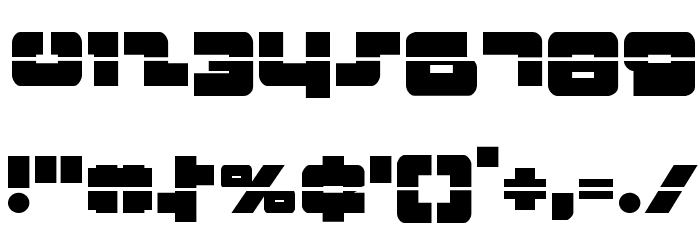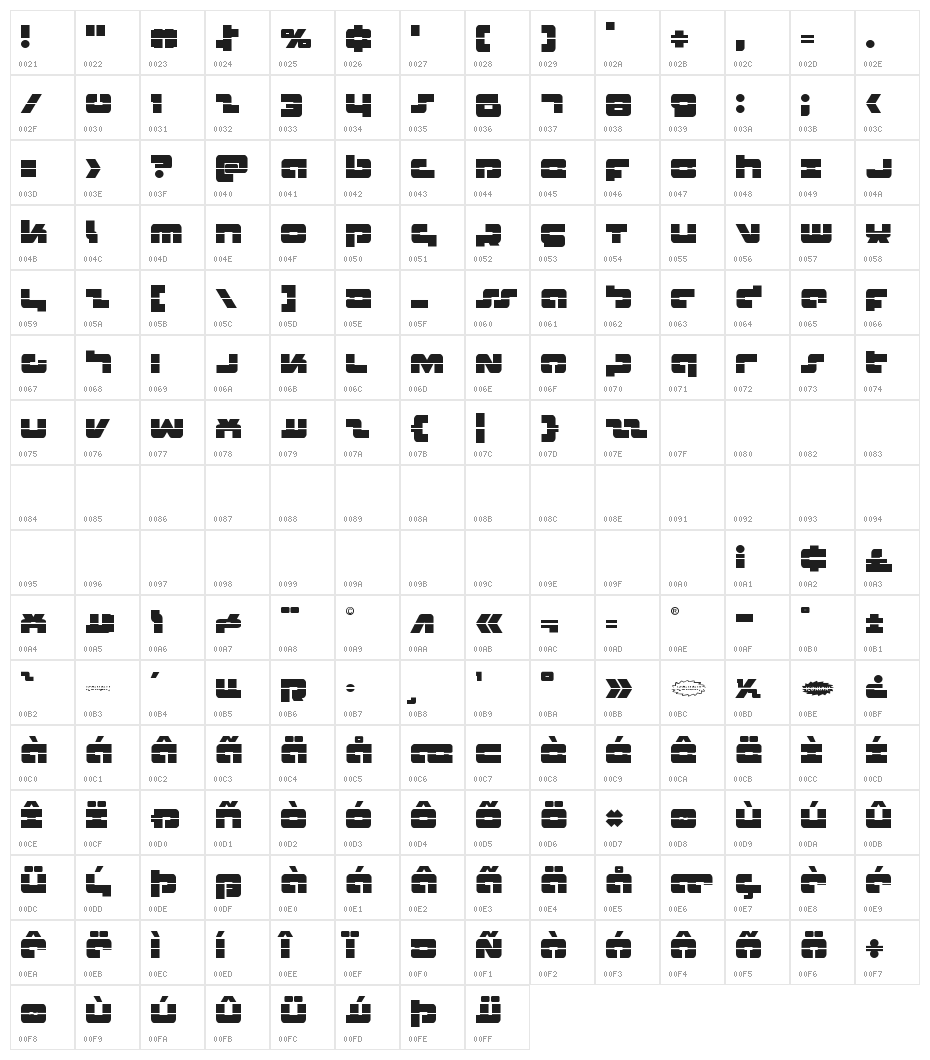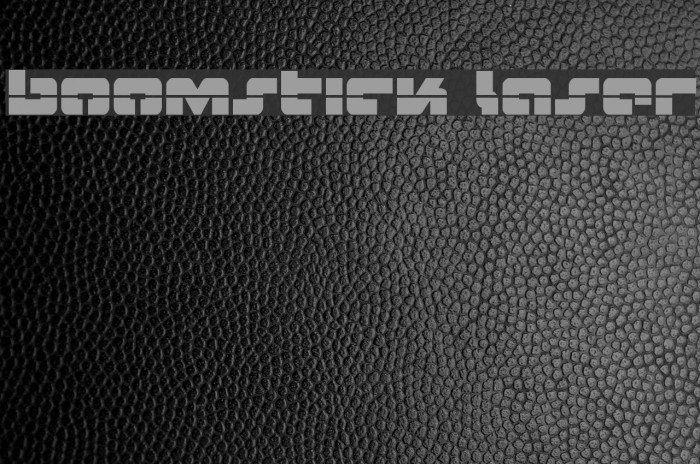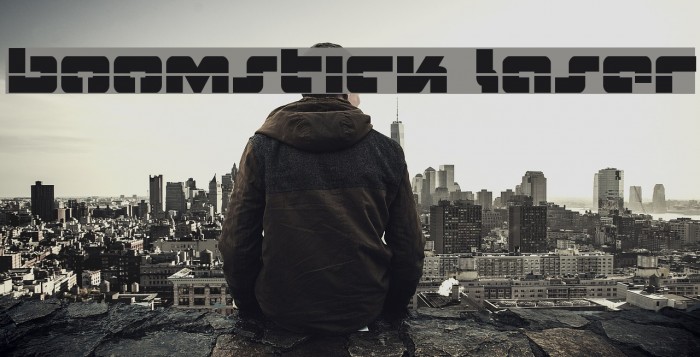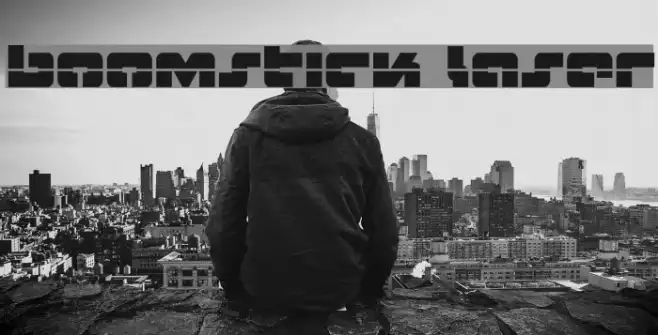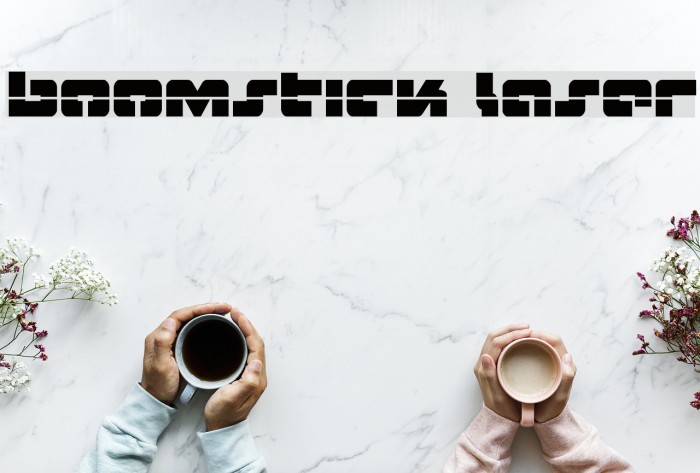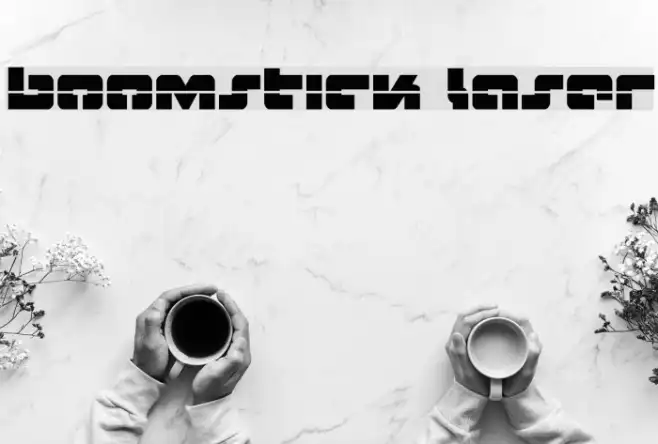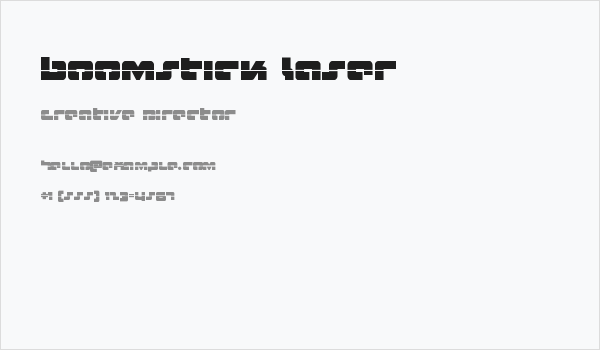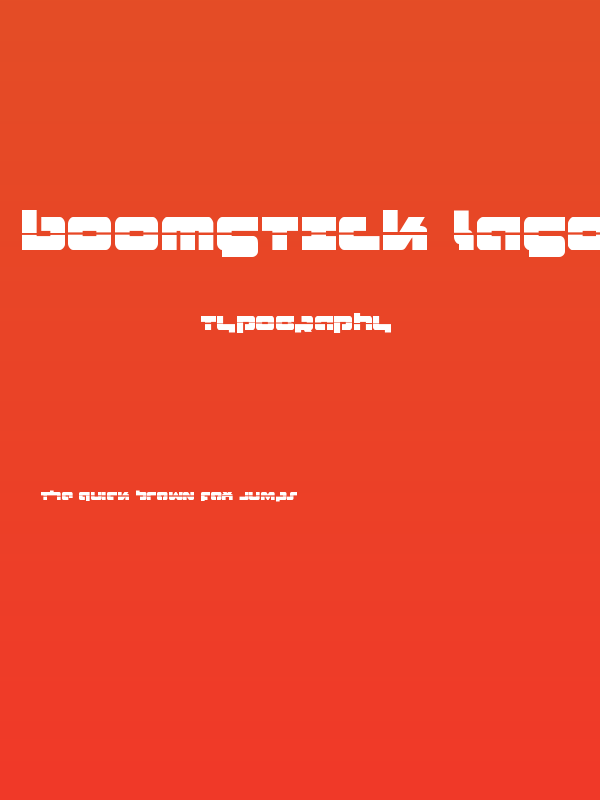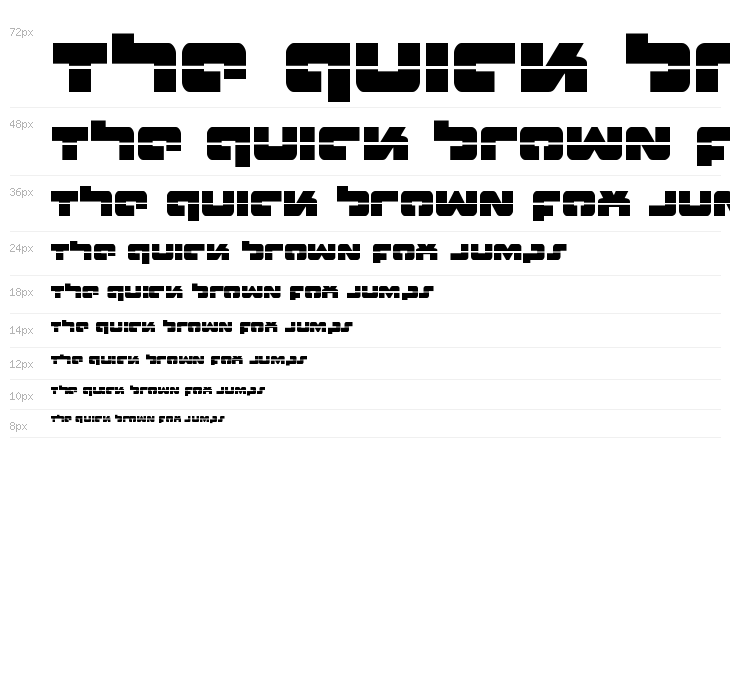
Boomstick Laser Font
Boomstick Laser Description
This font features a bold, futuristic design with a distinctly geometric and blocky appearance. The characters are constructed with thick, uniform strokes that create a strong visual impact. The angular shapes and sharp edges give it a modern and industrial feel, making it ideal for projects that require a tech-savvy or avant-garde aesthetic. The uppercase and lowercase letters maintain a consistent style, while the numbers and special characters are equally bold and striking. The font's unique style is perfect for creating eye-catching headlines, posters, or branding materials that demand attention.
| Proposed Projects | Ideal for tech branding, sci-fi posters, video game titles, and modern advertising. |